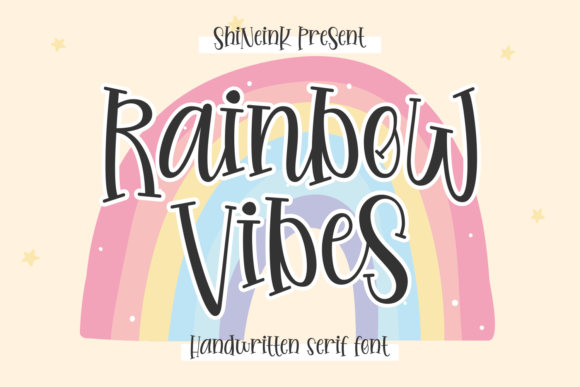
Prepare yourself to be mesmerized by the stunning Rainbow Vibes font, a serif masterpiece crafted by the brilliant minds at shineink.designlab. This font is not just a collection of letters; it's an artistic journey that will transport you to a world of creativity and boundless possibilities.
With its playful curves and cheerful demeanor, Rainbow Vibes is the perfect font to add a touch of whimsy and delight to any project. Picture this: a greeting card that bursts with joy, a poster that radiates positivity, or a digital design that captures the essence of pure fun. The possibilities are endless, and the only limit is your imagination.
But Rainbow Vibes is more than just a pretty face. It's also incredibly versatile, making it the perfect choice for a wide range of projects. Whether you're working on a craft project, creating a presentation, designing a logo, or crafting social media posts, Rainbow Vibes will elevate your work to new heights.
Imagine a world where your designs come alive with playful charm, where every letter dances with delight and every word tells a story. That's the power of Rainbow Vibes, a font that will transform your creative projects into captivating masterpieces.